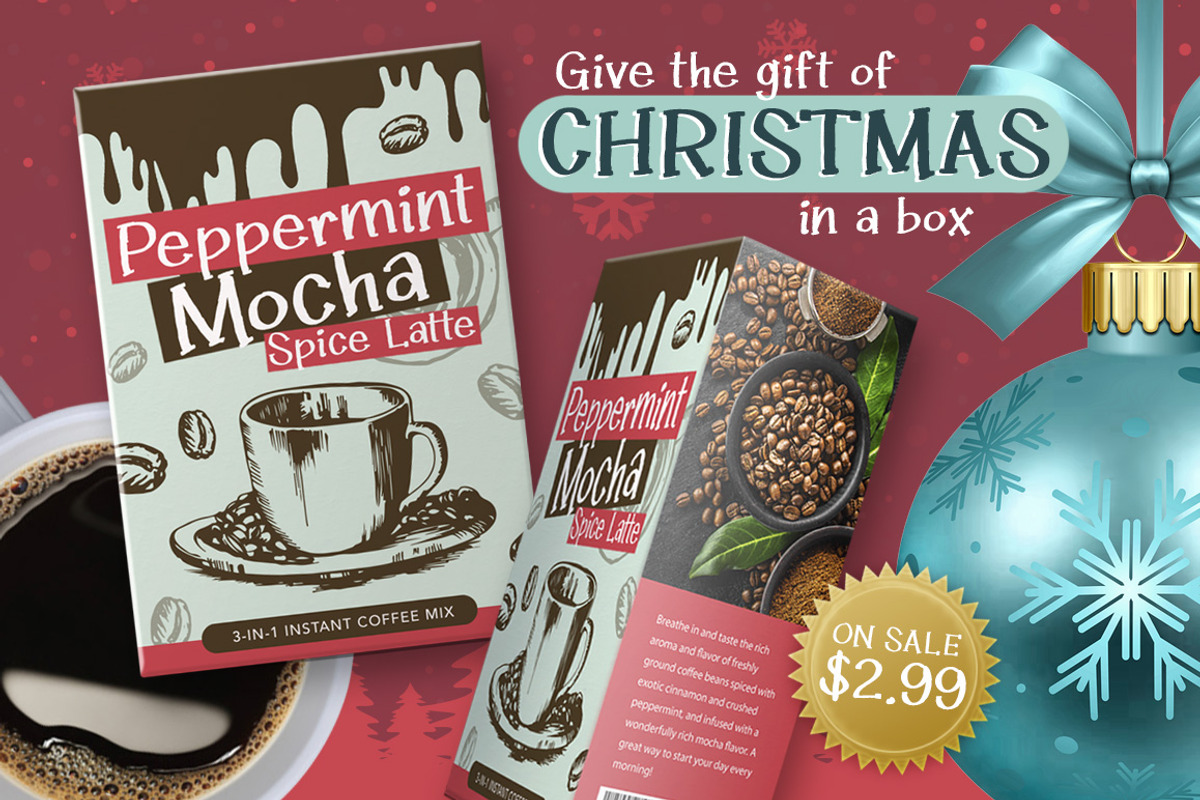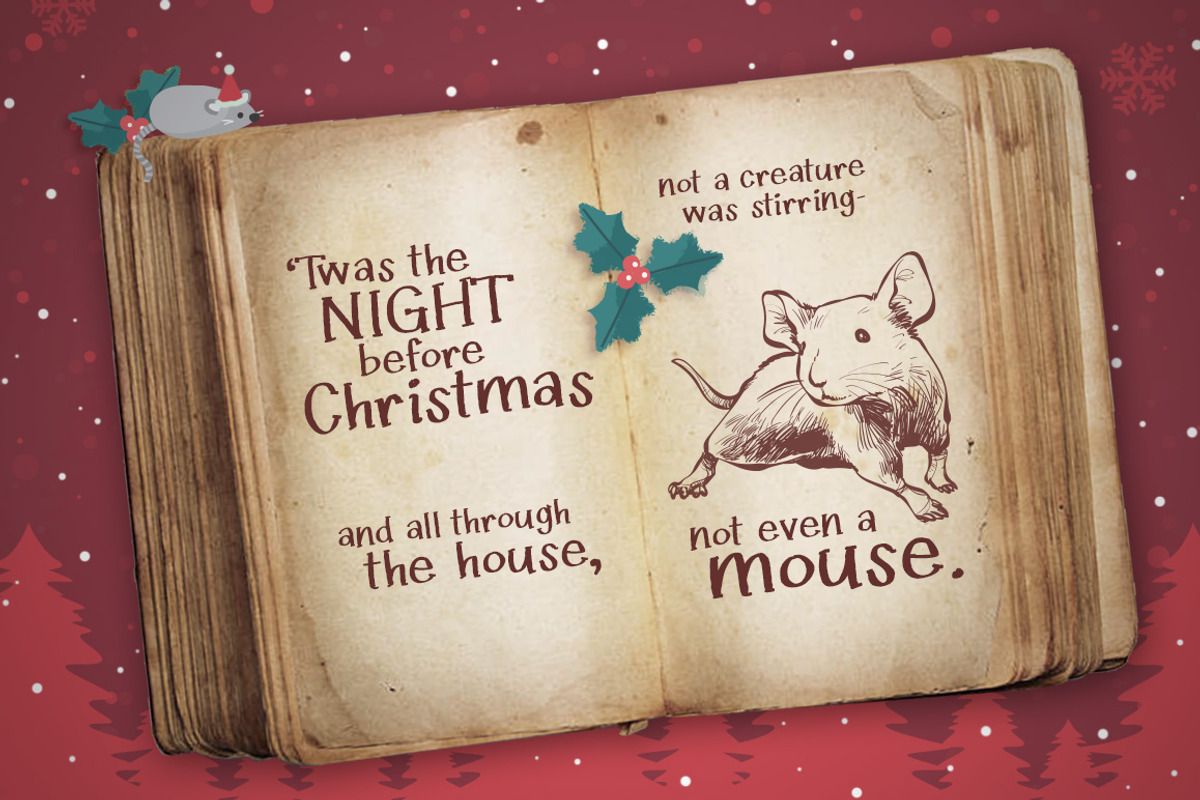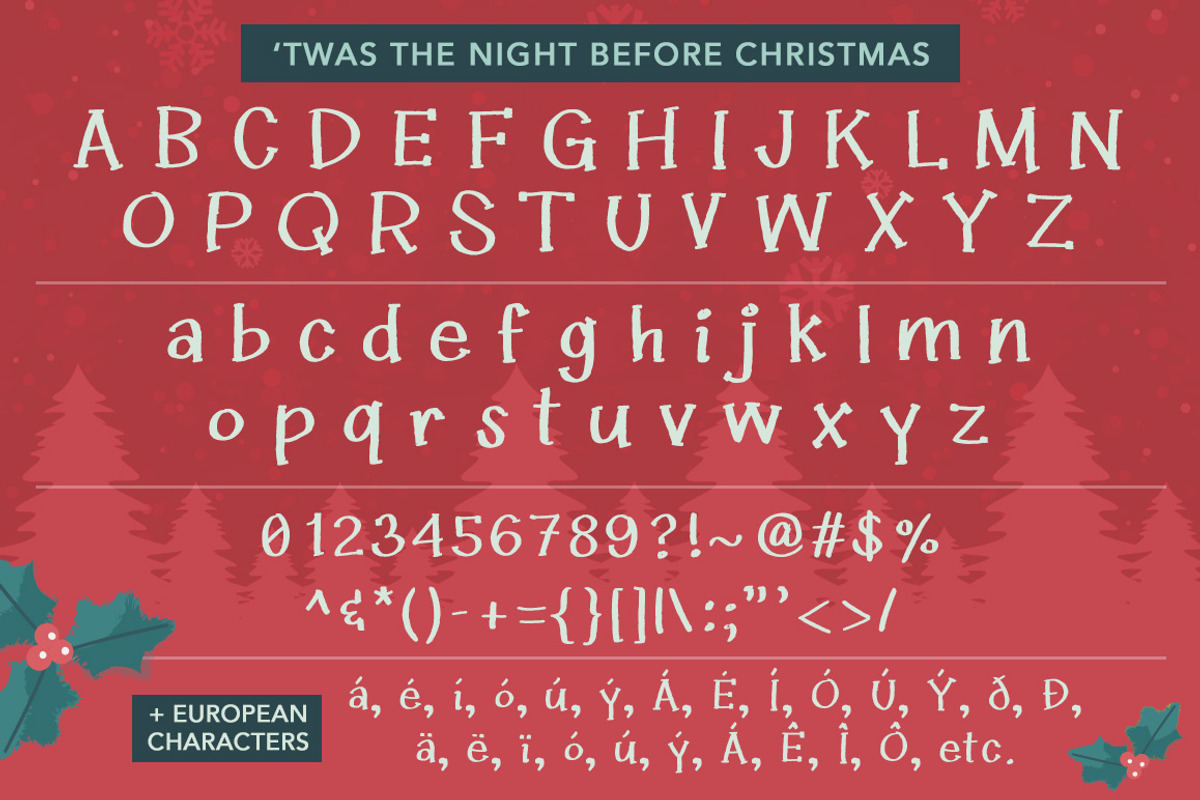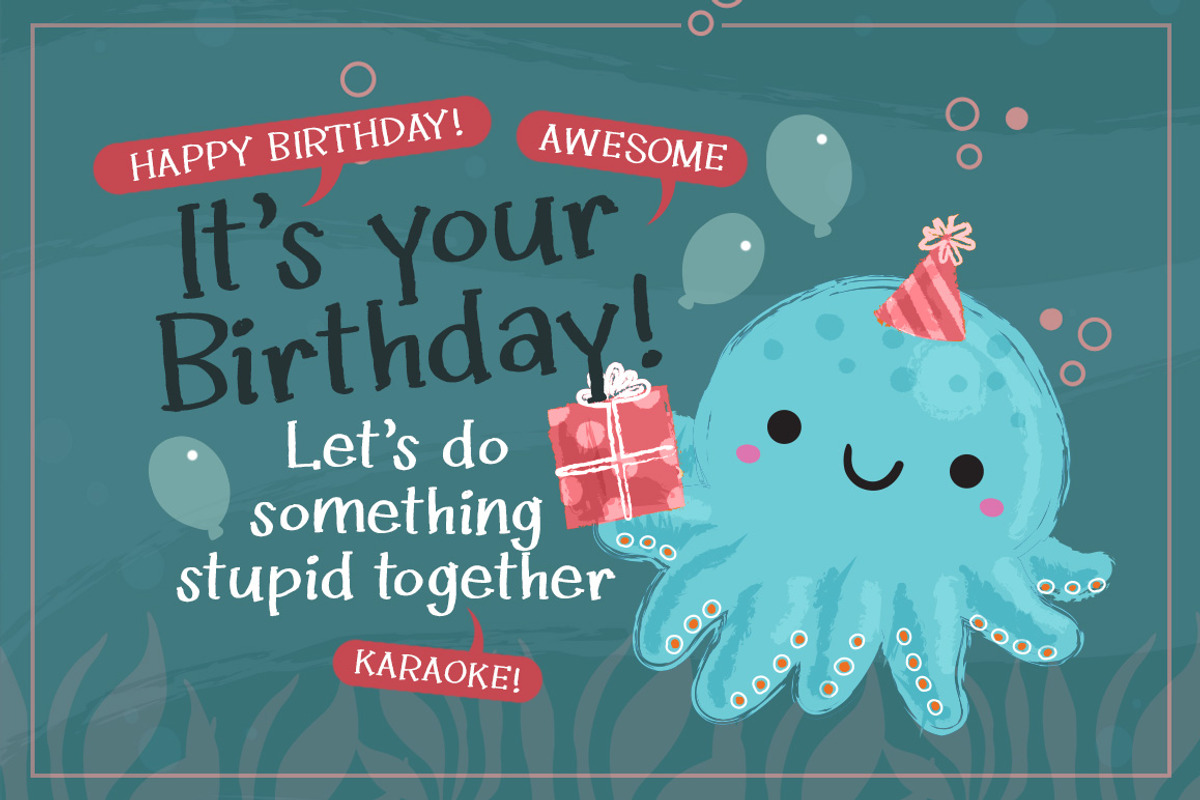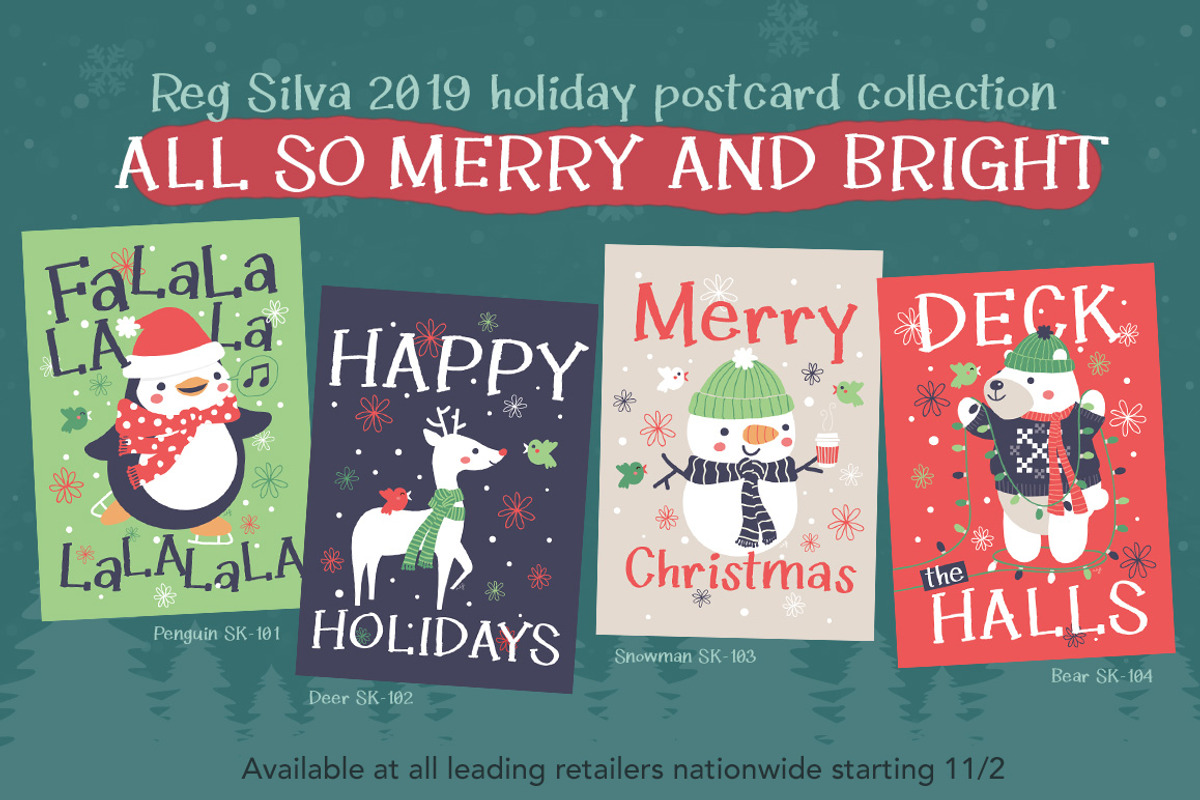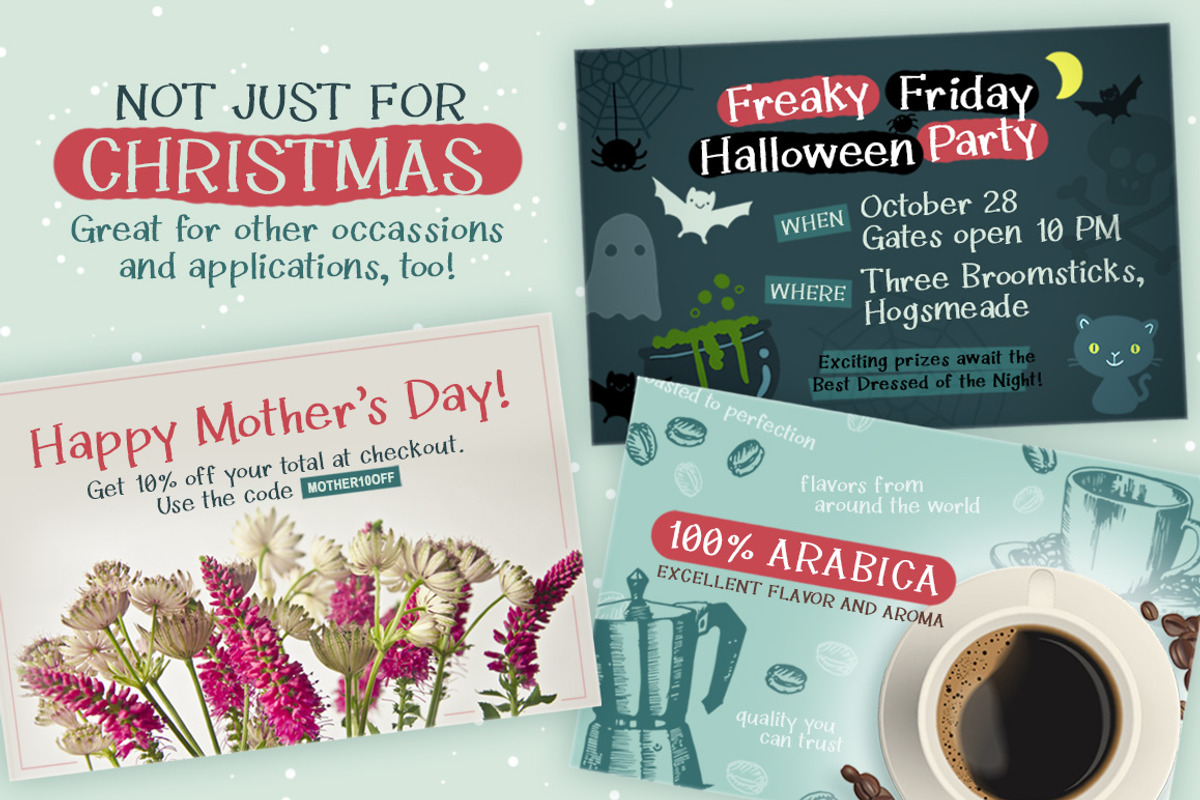
Twas the Night Before Christmas Font
'Twas the Night Before Christmas is a handwritten serif font that's super versatile-- it's not just for Christmas, actually! The kooky, uneven letters are perfect for adding that handwritten marker look to your Halloween, birthday, packaging, social media projects and more!
Why Twas the Night Before Christmas Font is worth a look
Twas the Night Before Christmas Font by Quirky Queen Media fits naturally into Branding, posters, packaging, typography.